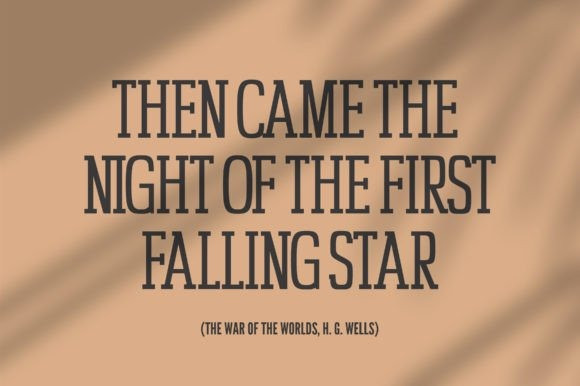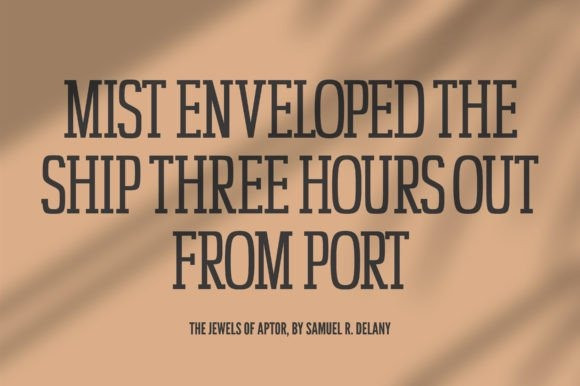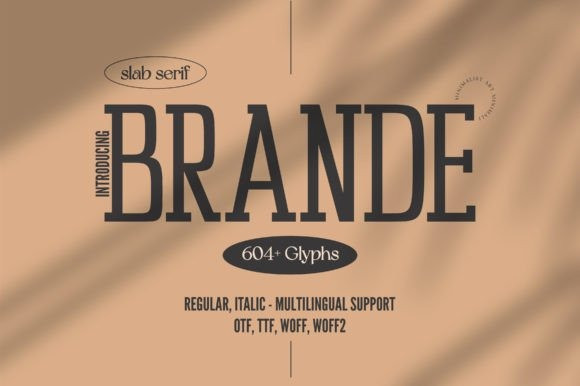
Brande Font
Brande Font, a sleek and refined tall and condensed slab serif font that exudes elegance and sophistication. With its clean and minimalist design, Brande is the perfect choice for any project that requires a touch of class and modernity. Whether you’re designing a logo, packaging, or a website, Brande’s sharp lines and refined curves are sure to elevate your project to the next level.